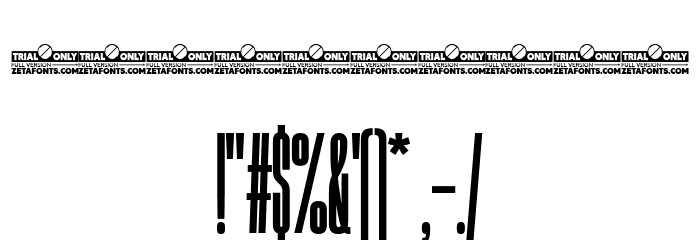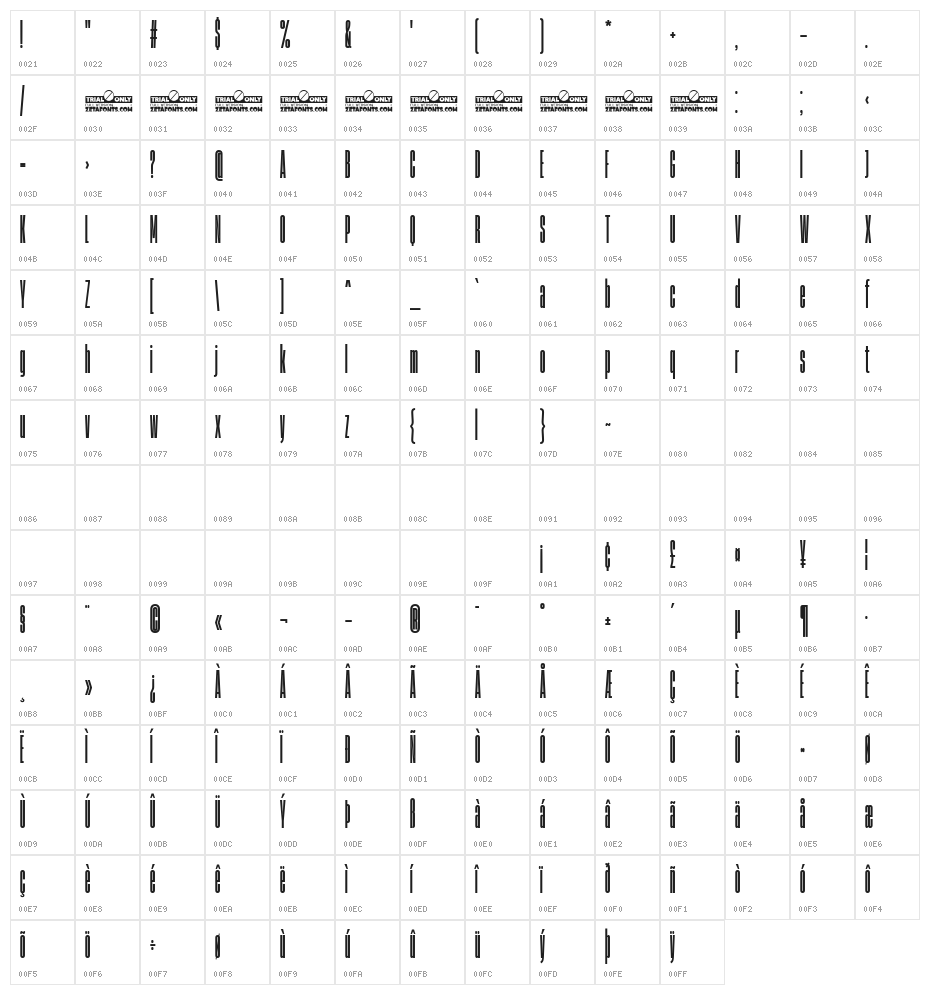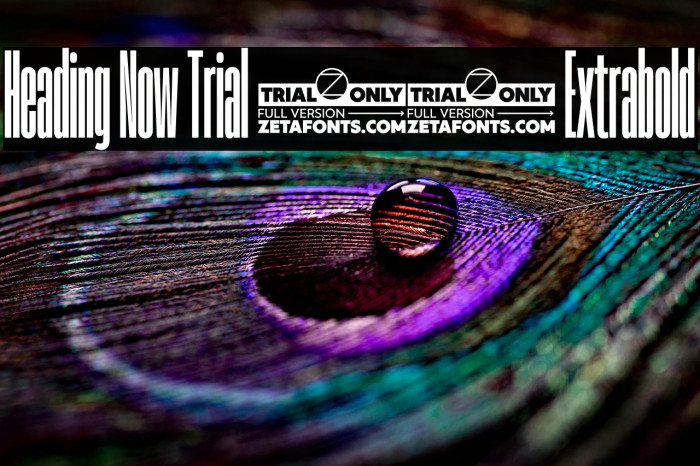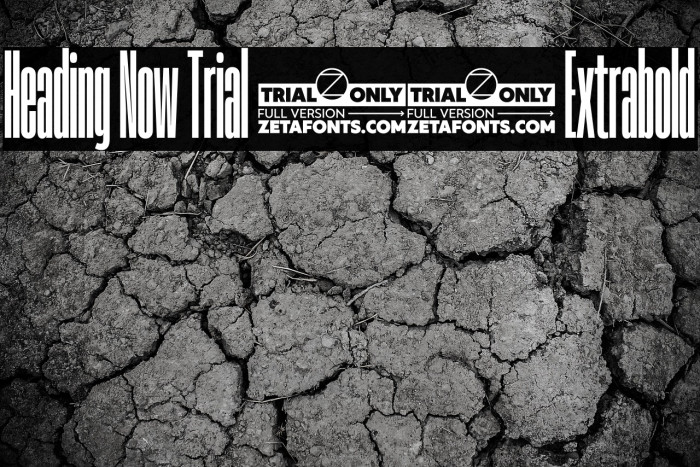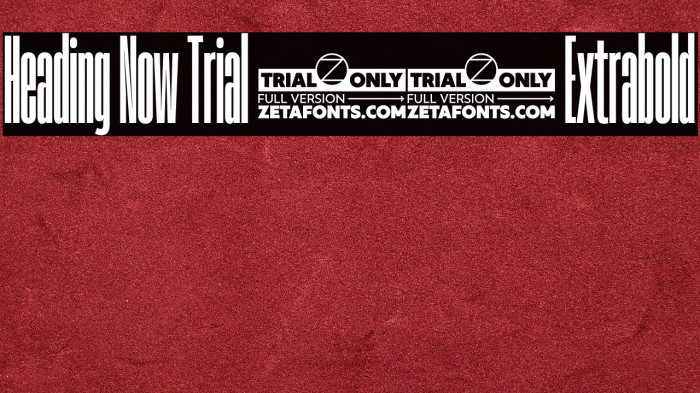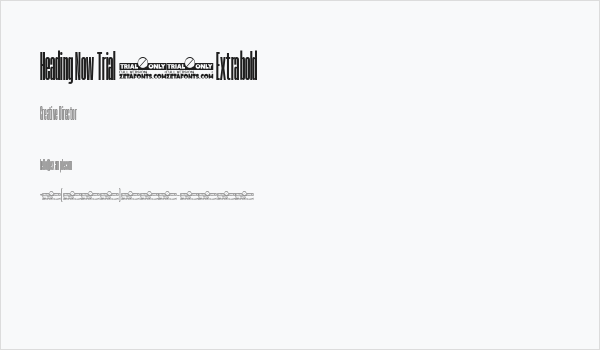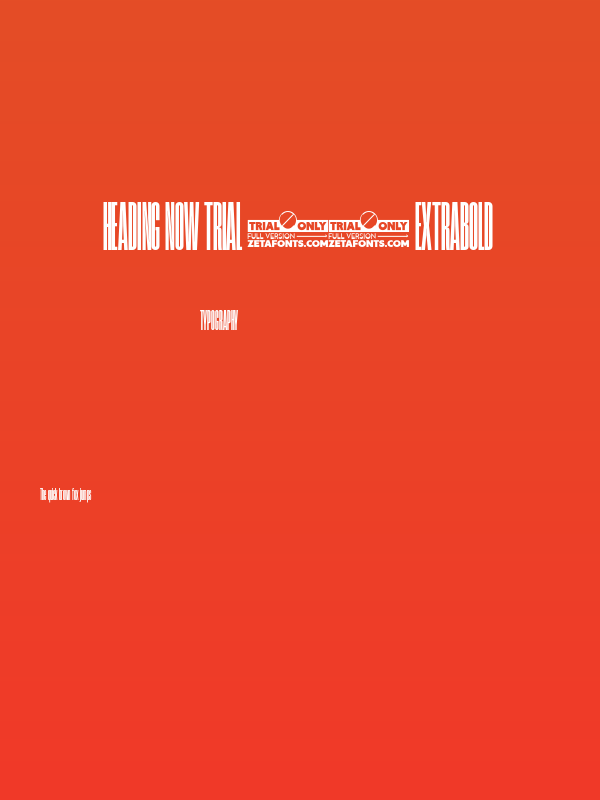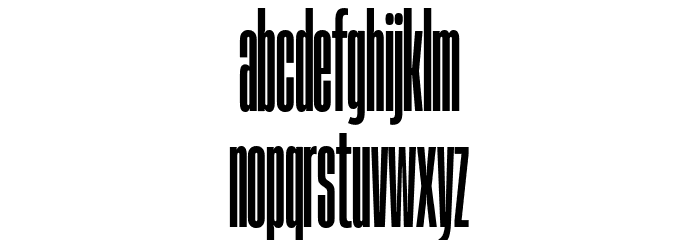
Heading Now Trial 07 Extrabold Font
Heading Now Trial 07 Extrabold Description
This font features a bold and impactful design with a strong presence. The characters are tall and narrow, creating a condensed appearance that is both modern and striking. The uppercase and lowercase letters maintain a consistent style, with clean lines and sharp edges. The numerals and special characters are equally bold, ensuring uniformity across all text. This font is ideal for making a statement, with its high contrast and attention-grabbing style.